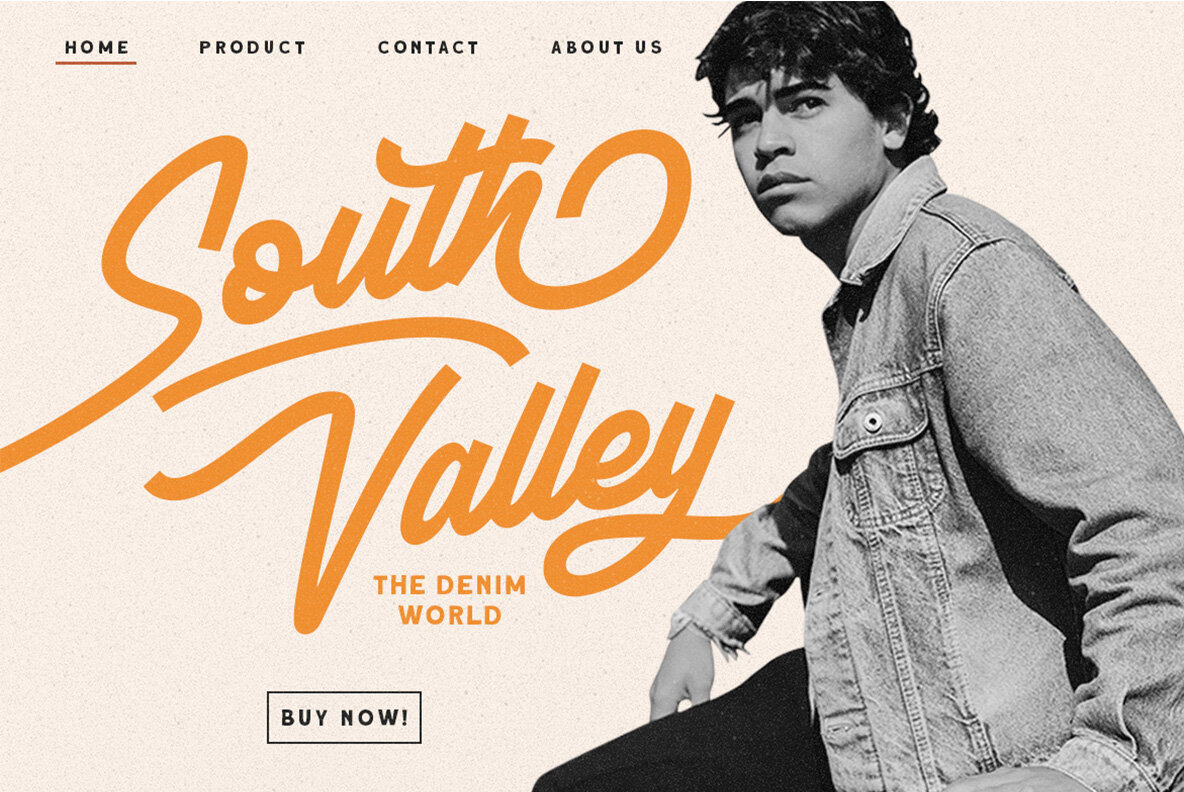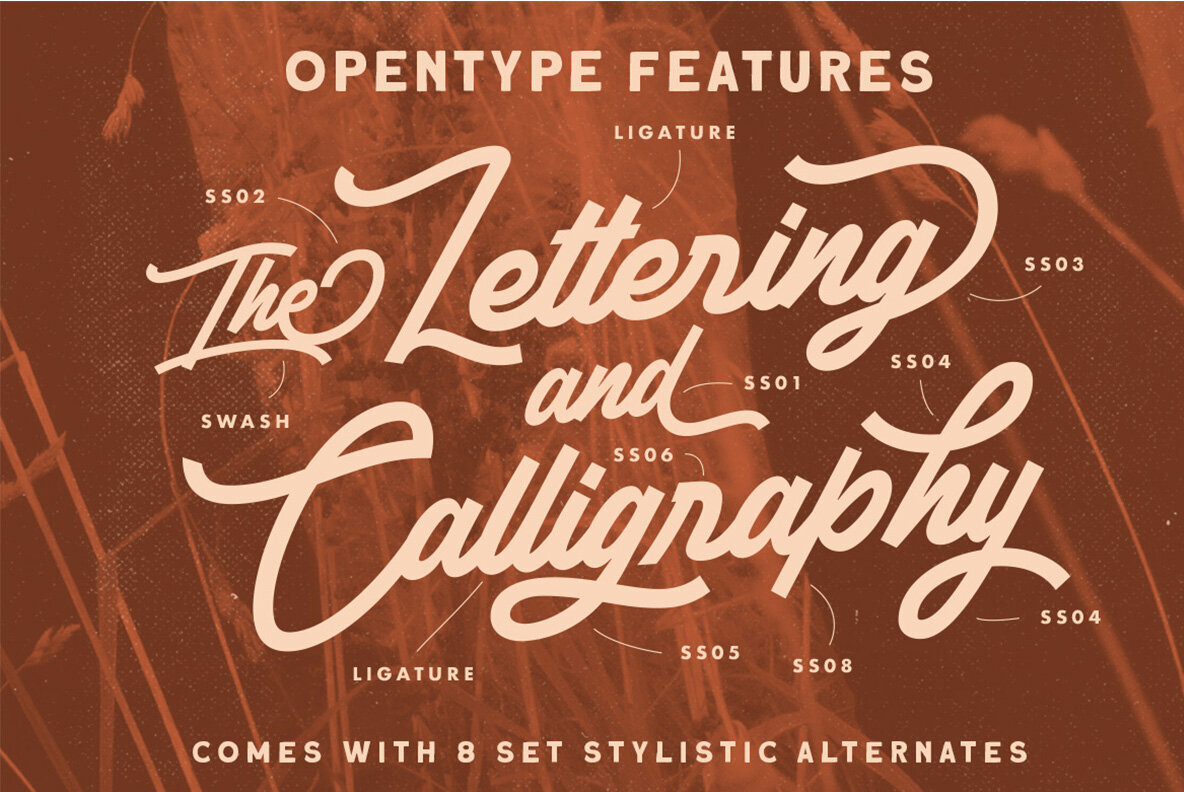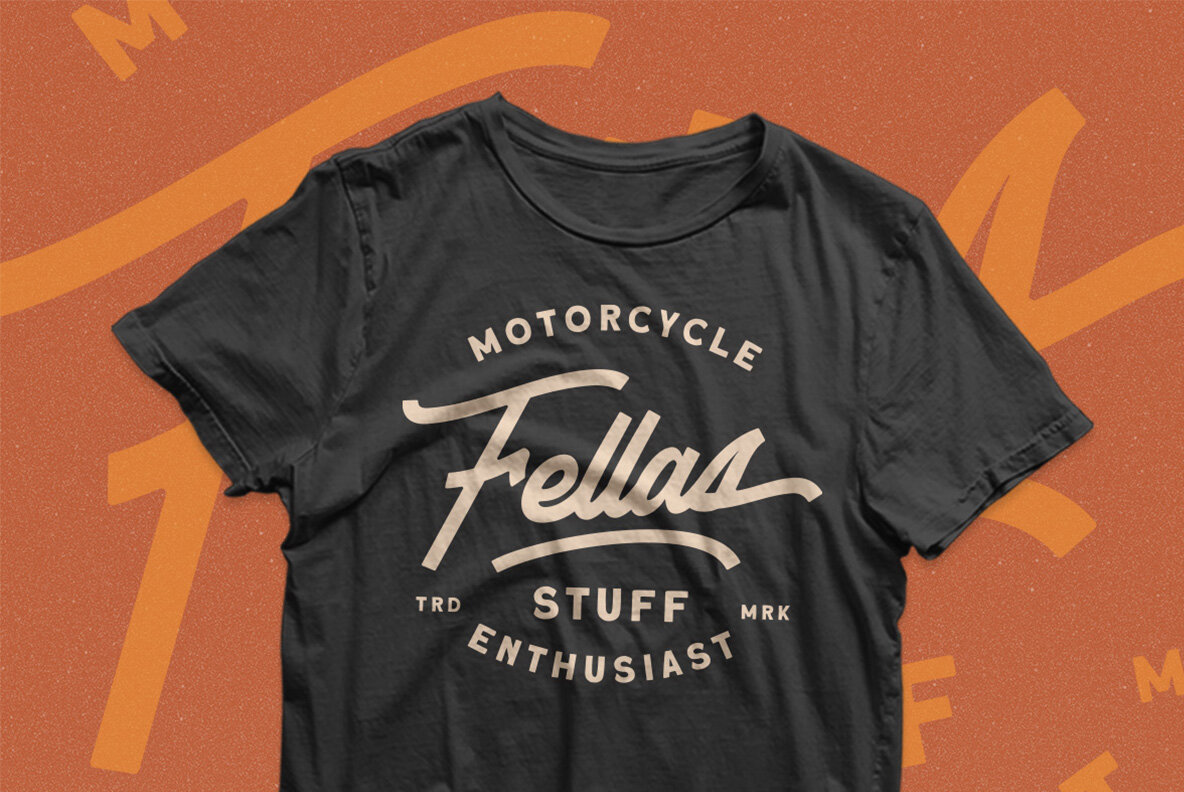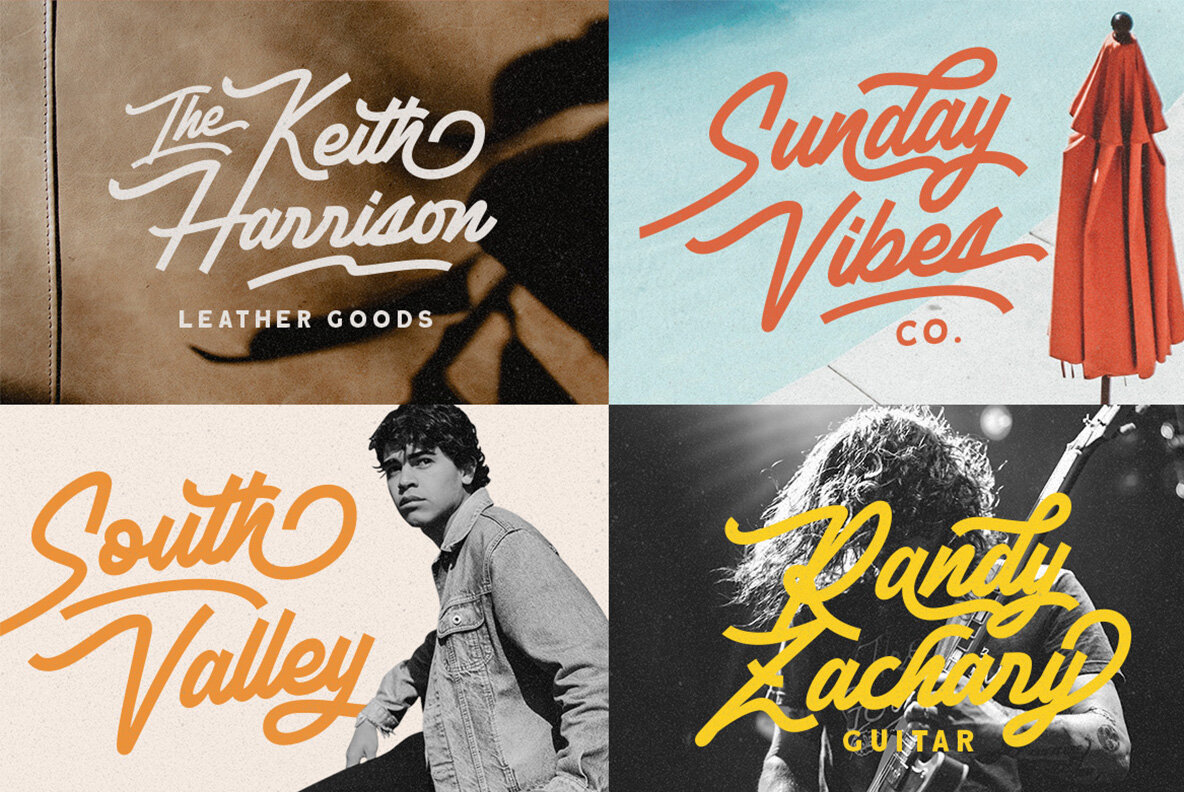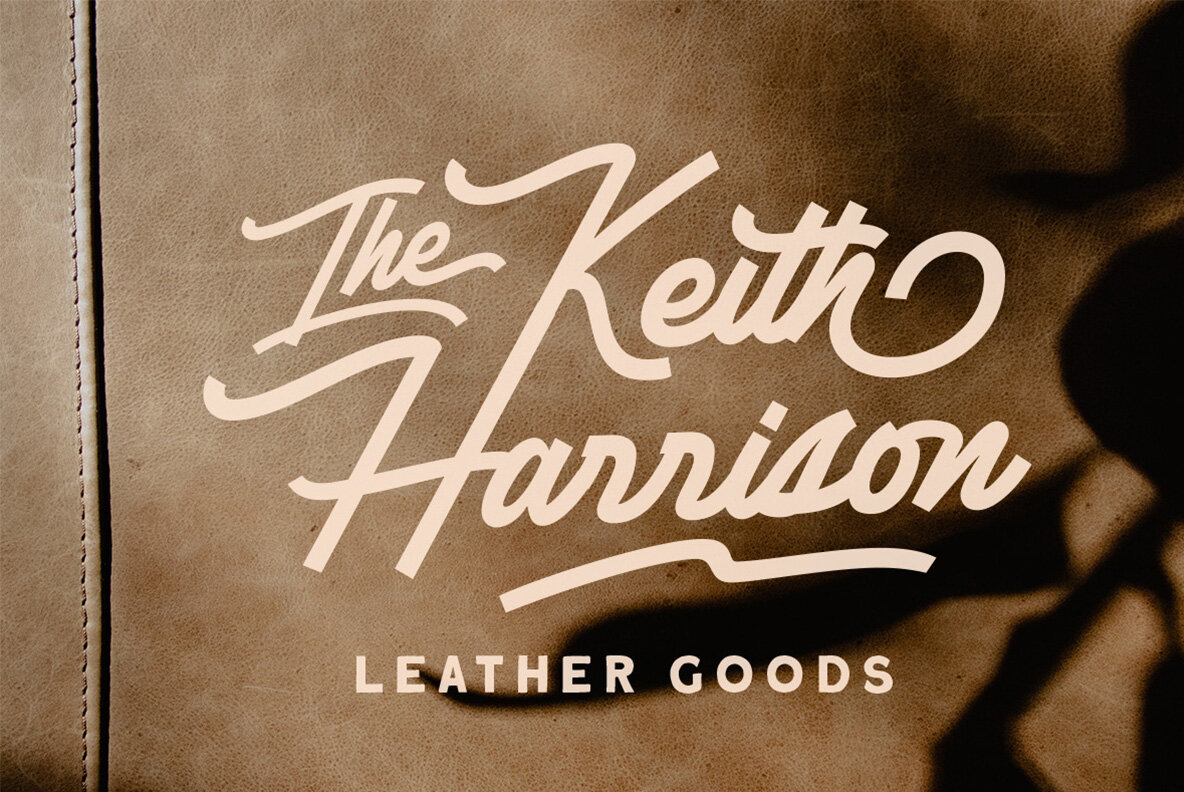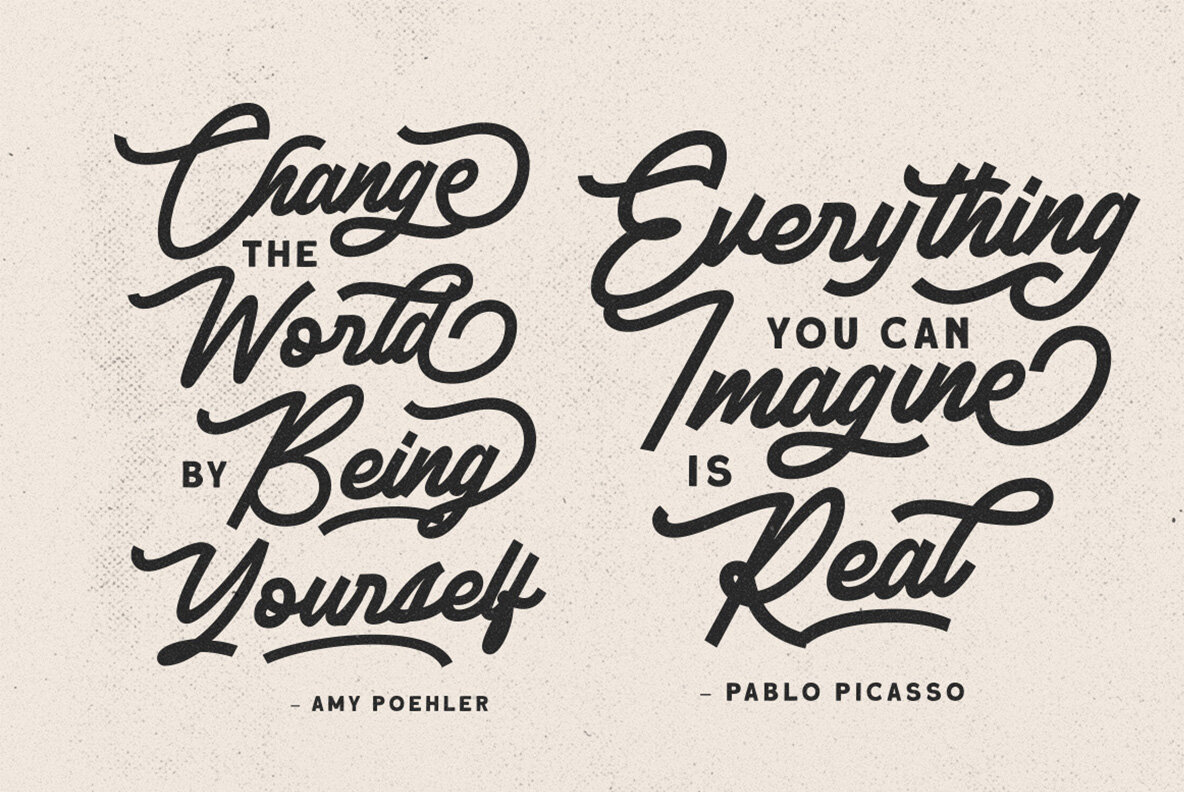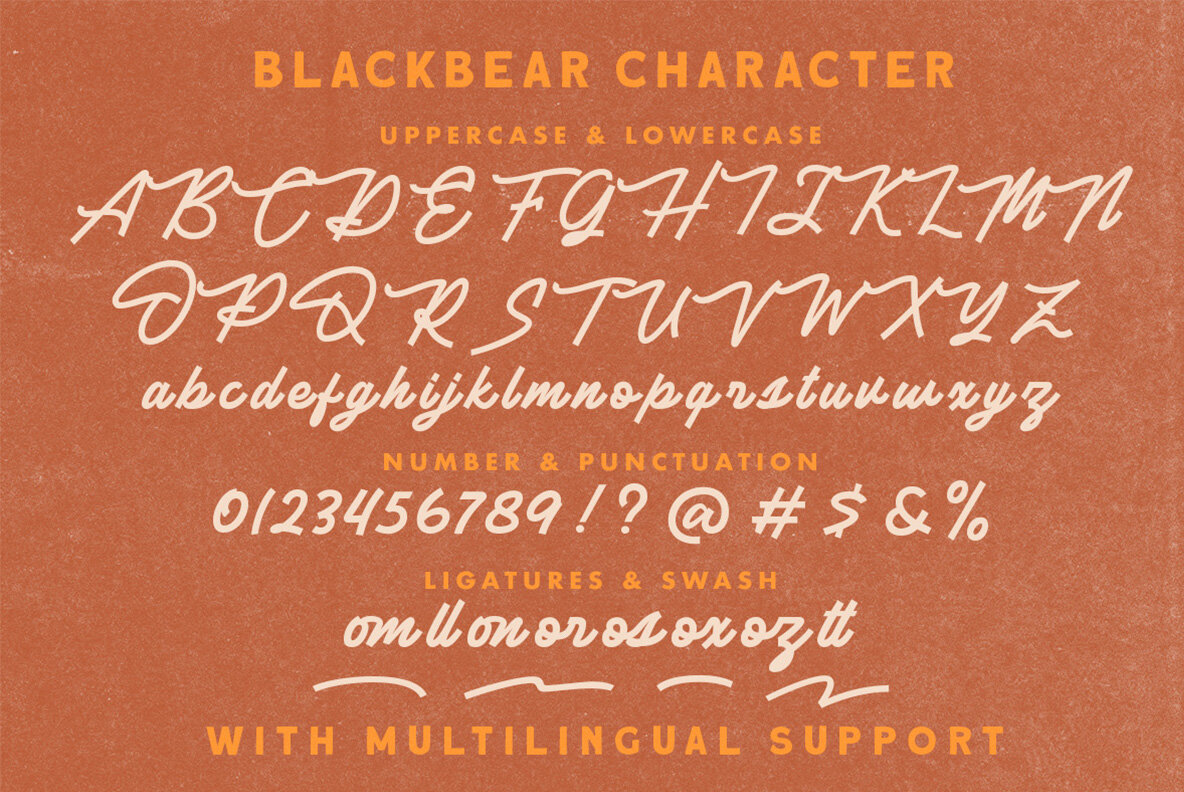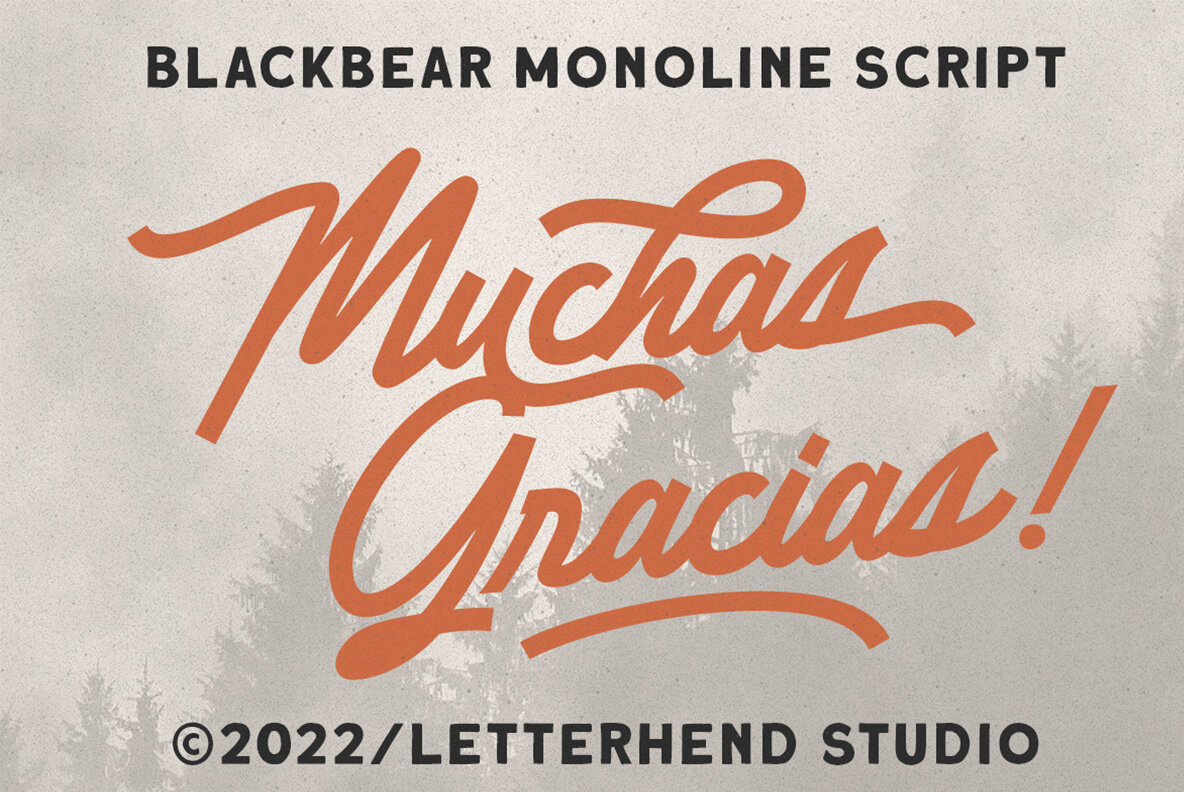
Blackbear Font
Blackbear Regular
Blackbear brings a touch of sophistication with its monoline script design, offering a seamless blend of casual elegance and classic charm. This font is particularly effective in elevating logos, headlines, and signage while also suiting a variety of formal applications. From invitations and greeting cards to packaging and fashion branding, Blackbear finds its place in numerous creative avenues.Blackbear: A Monoline Script for Versatile Use